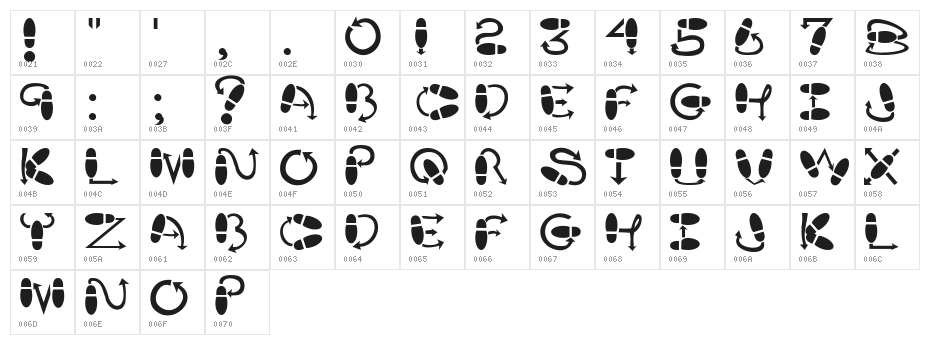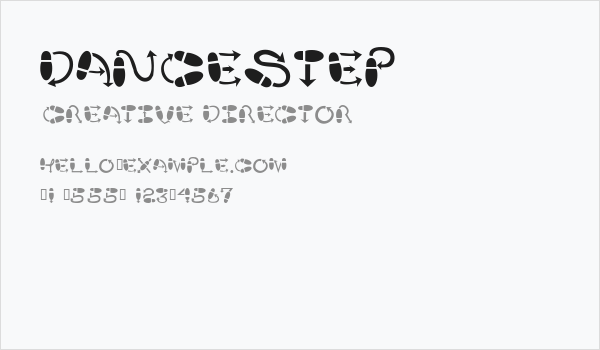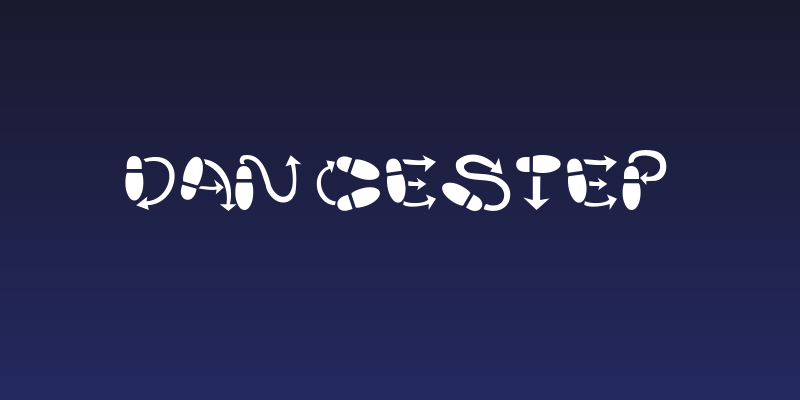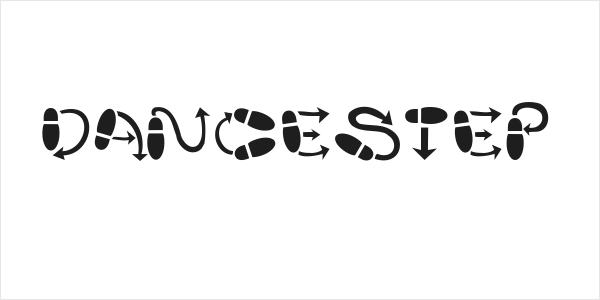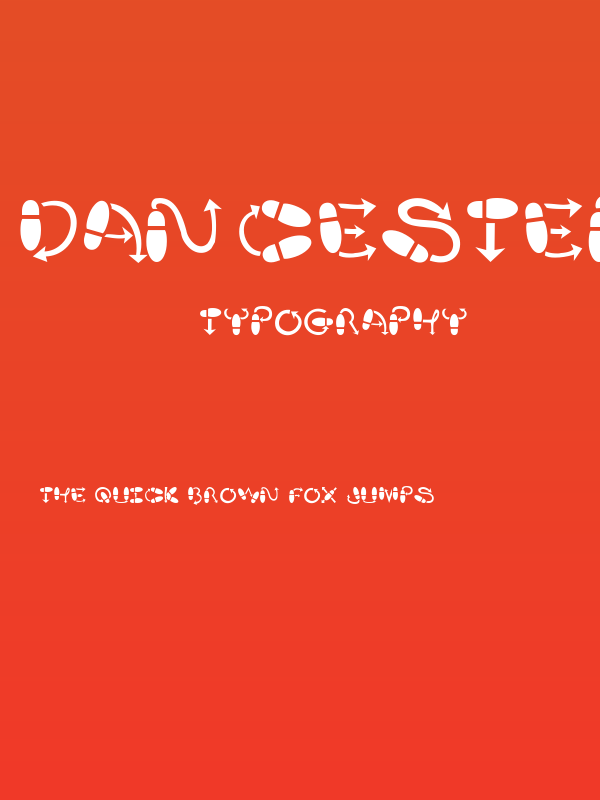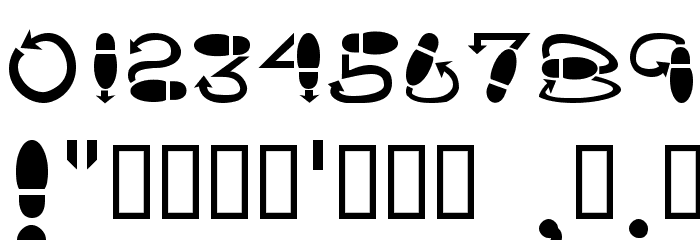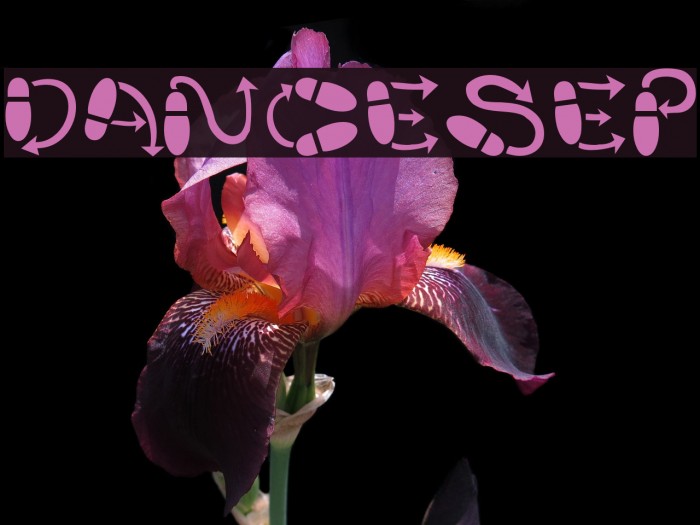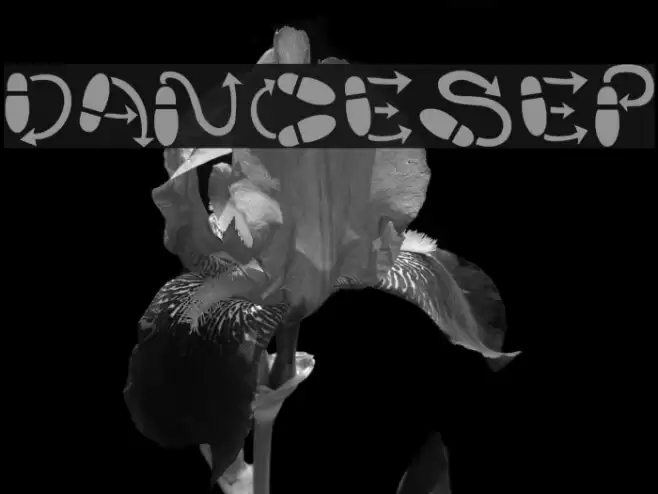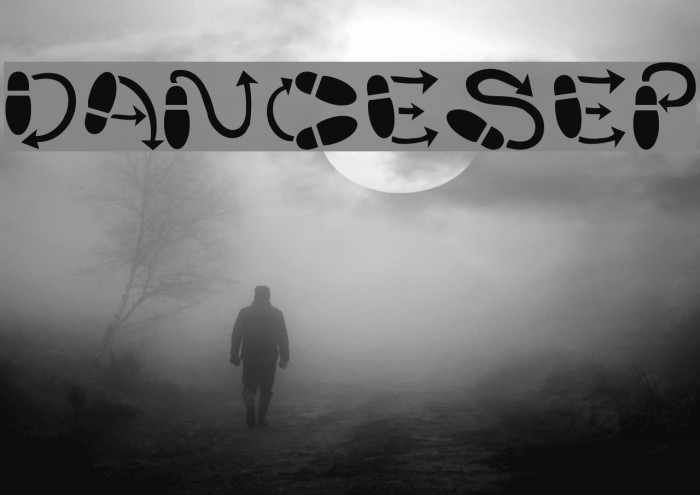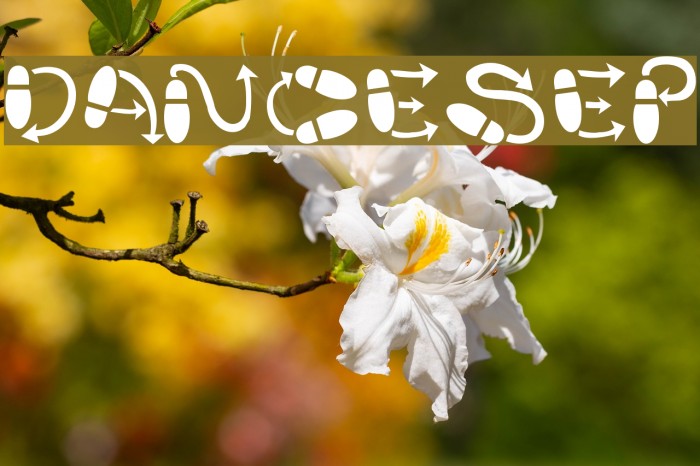
DanceStep Font
DanceStep Description
This font features a playful and dynamic design, incorporating dance step patterns into each character. The letters are bold and rounded, with arrows and footprints integrated into the strokes, giving a sense of movement and rhythm. The uppercase and lowercase letters maintain a consistent style, while the numbers and special characters follow the same thematic approach. The overall look is unique and eye-catching, making it ideal for projects that require a fun and energetic vibe.
| Proposed Projects | Ideal for dance studio branding, event posters, children's party invitations, and any project needing a lively and energetic typeface. |